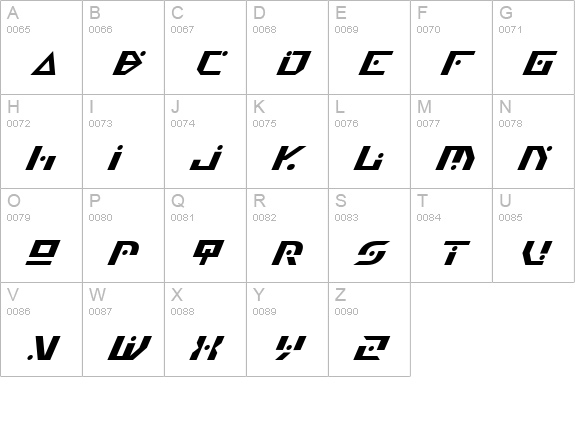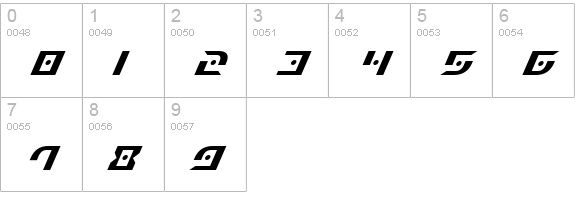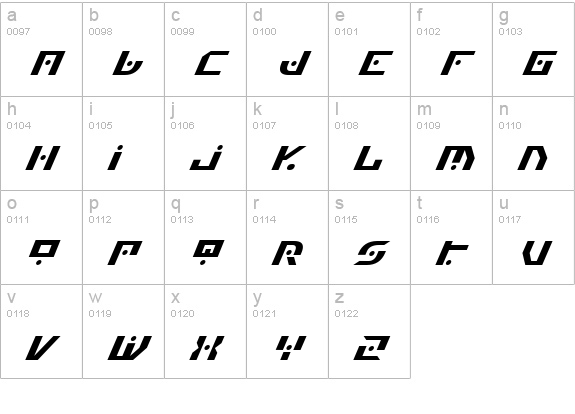
Generation Nth Italic Font Details
Generation Nth Italic is a distinctive, italic variant in the Generation typeface family \xE2\x80\x94 well suited to design and typography projects.
Introducing Generation Nth Italic font, a sleek and modern typeface designed to bring sophistication and elegance to your projects. With its stylish italics and unique letterforms, Generation Nth Italic adds a touch of class to any design. This font is perfect for creating eye-catching headlines, elegant logos, and stylish branding materials. Its versatile nature allows it to be used in a variety of design projects, from fashion magazines to luxury brands. The best part? Generation Nth Italic font is available for free download at FontsMarket.com. Don't miss out on this opportunity to elevate your designs with this exquisite typeface. Download Generation Nth Italic today and make your projects stand out with its timeless charm and modern appeal.